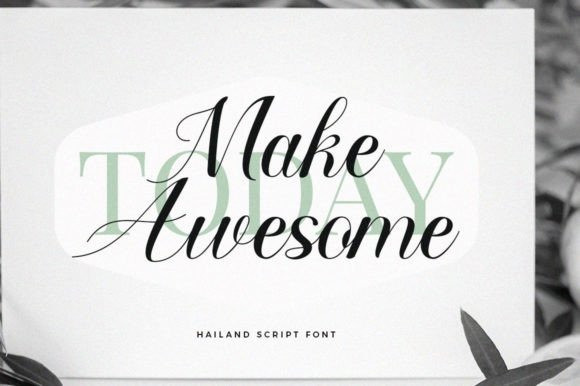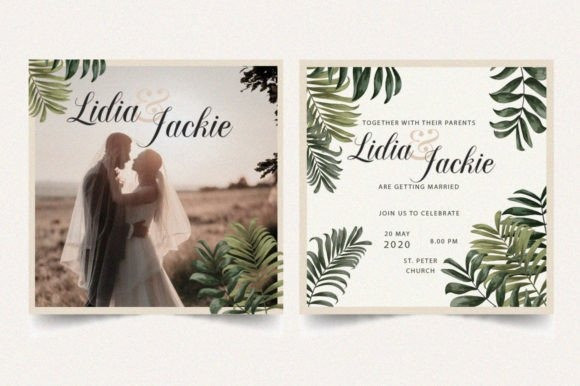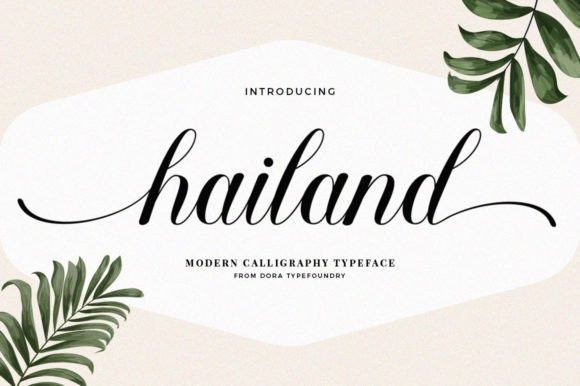
Hailand Font
Hailand Calligraphy Font is a deluxe and exquisite script font that embodies luxury and sophistication. This font features finely crafted and elegant letterforms with a flowing calligraphic touch that exudes refinement and class. Perfect for creating high-end branding, editorial designs, or any project that requires a touch of opulence and beauty.